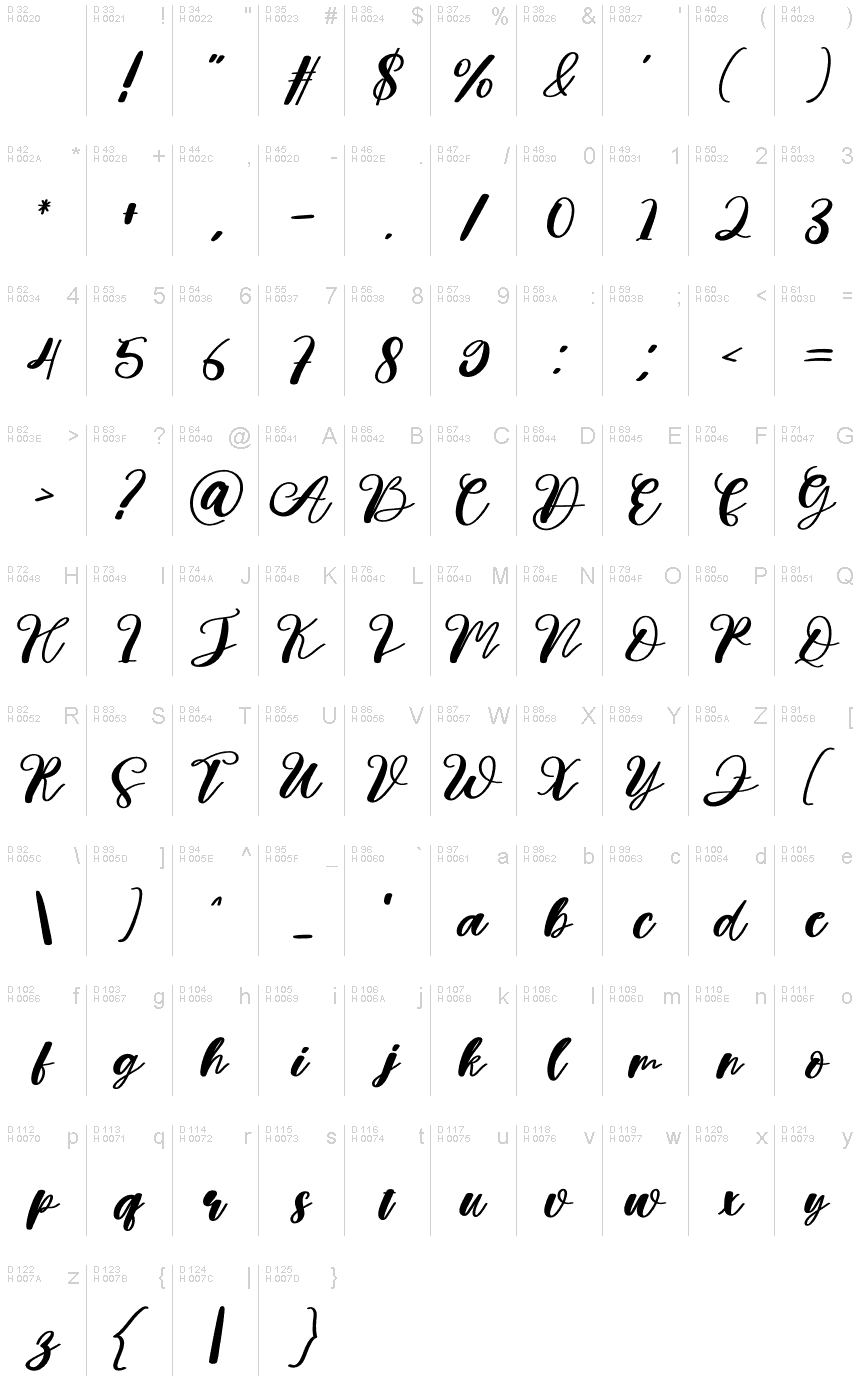
Moom
Moom, the bold calligraphy font from scratchones, is perfect for adding a touch of elegance and flair to your creative projects. Its marker-inspired design gives it a unique edge that stands out from other calligraphy fonts. Use Moom for wedding invitations, branding materials, or even social media graphics. The bold typeface is sure to make an impact and draw attention to your message. Whether you're designing for print or digital platforms, Moom will bring your words to life in a beautiful and memorable way.
the latest style letters are perfect for wall displays, wedding invitations, social media post logos, advertisements, product packaging, product designs, labels, photography, watermarks, invitations, stationery, and any project that requires taste handwriting.